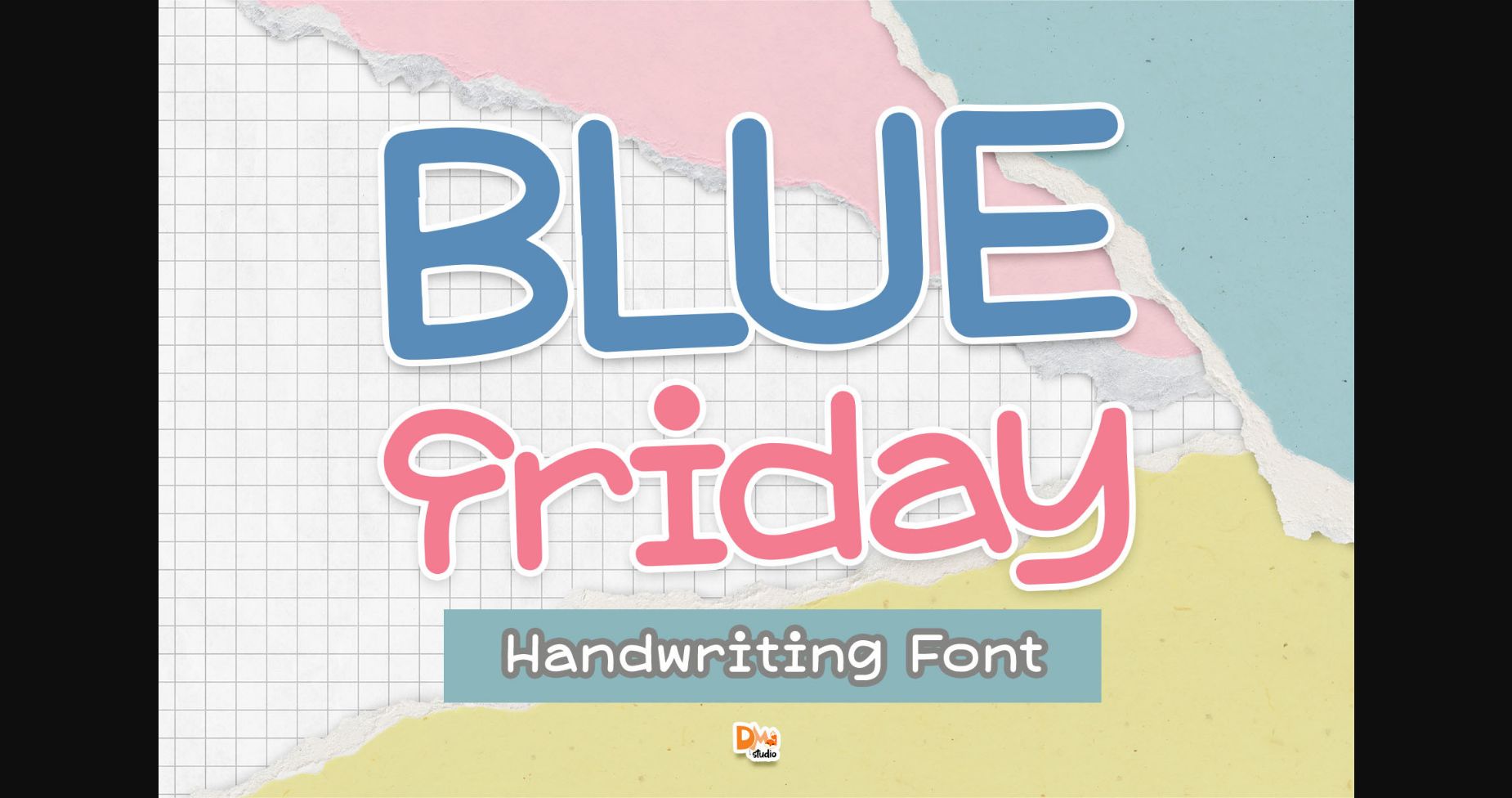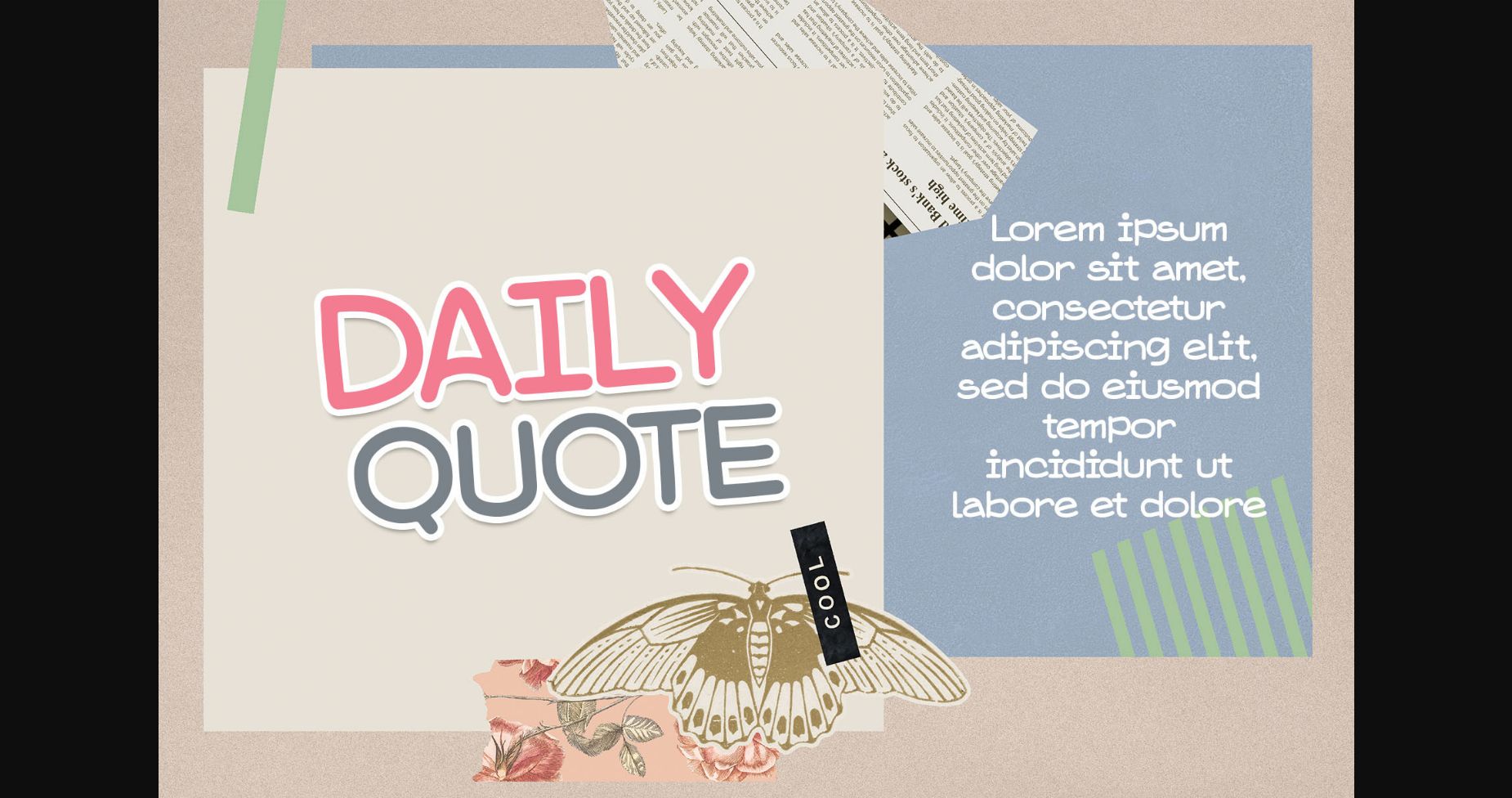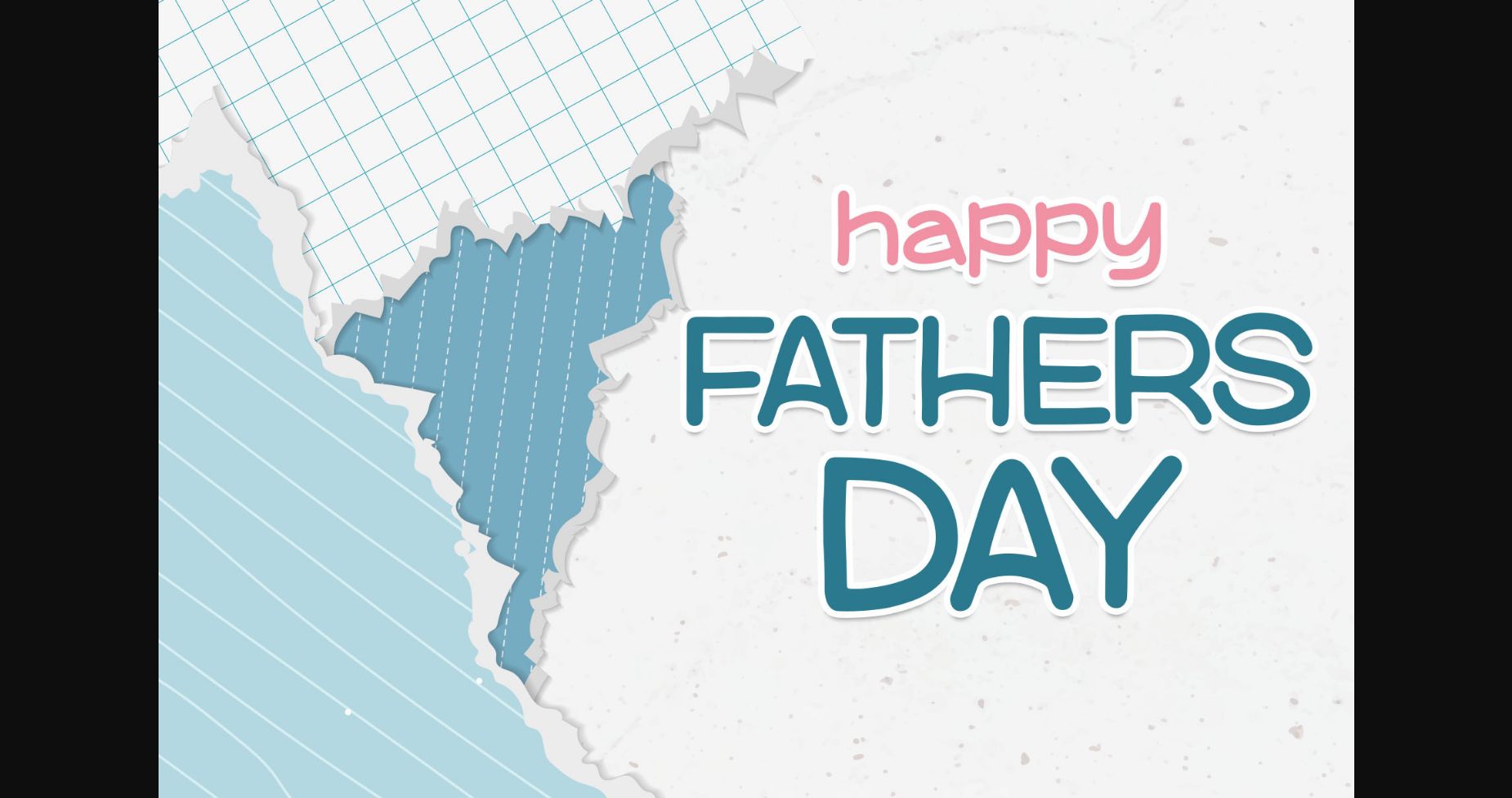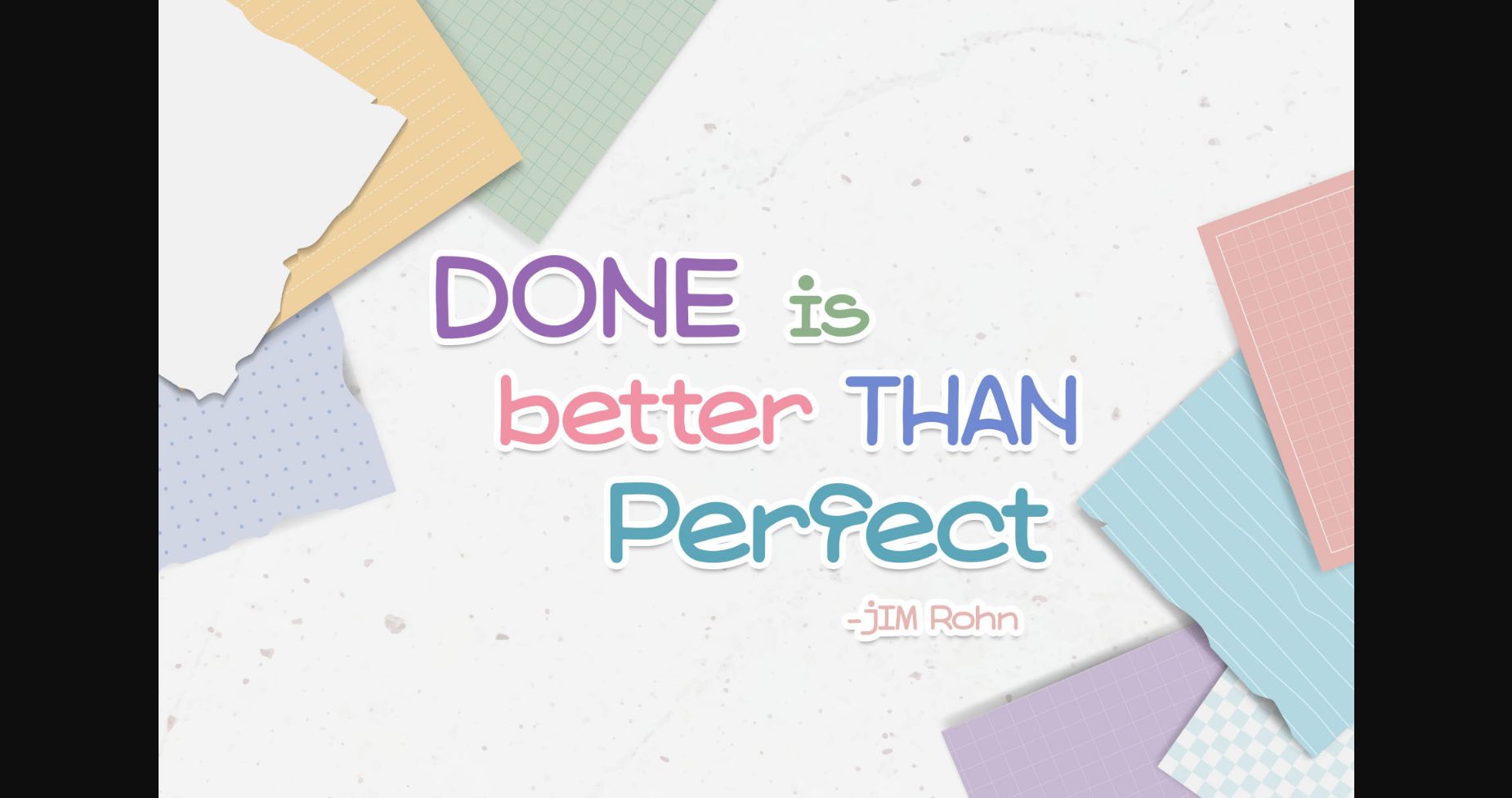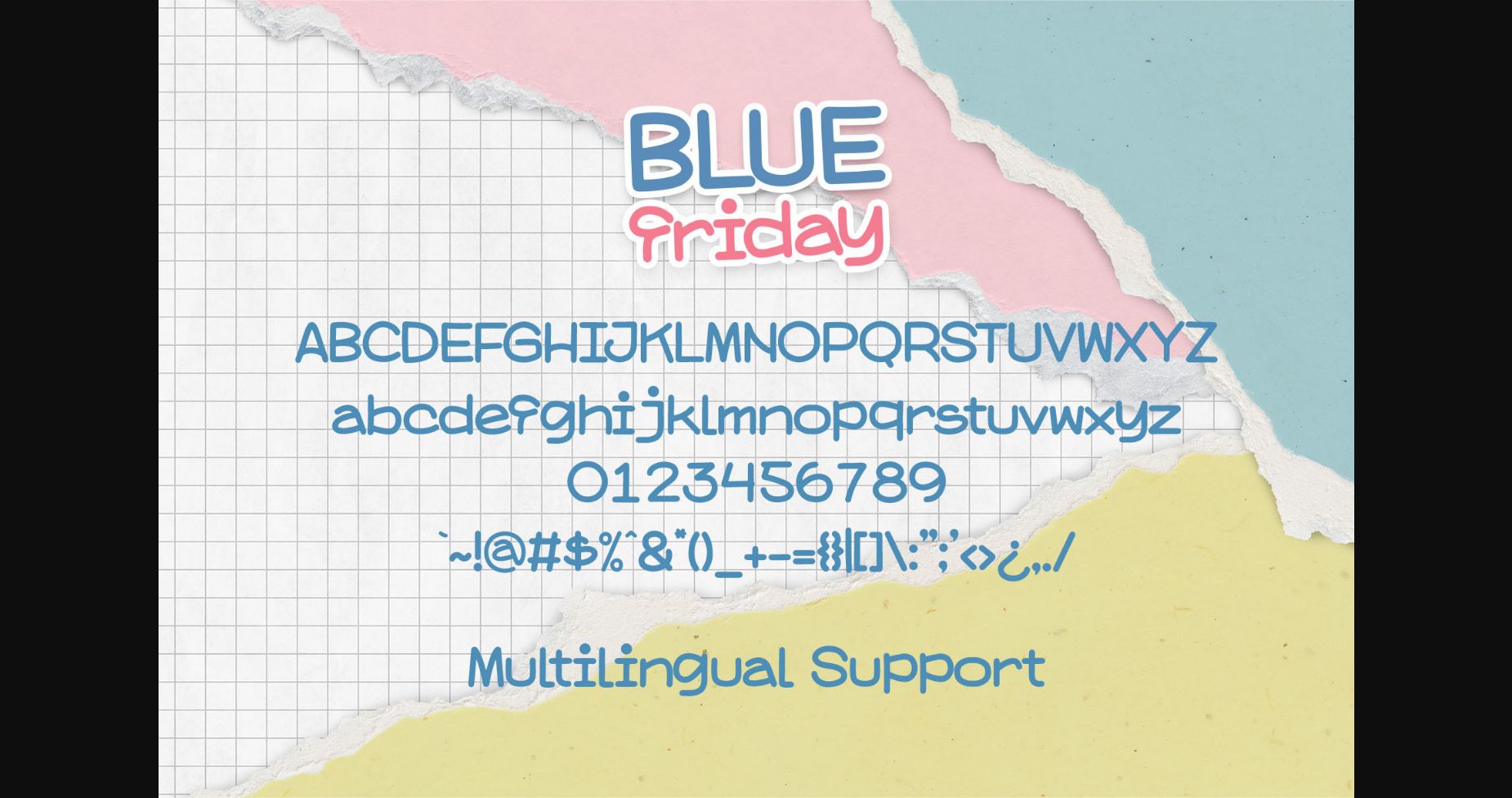
Blue Friday Font
About Blue Friday Font
Blue Friday is a fun and quirky sans serif font. It’s a clean monoline font that is great for display or any other purpose.
Make your DIY product more catchy using this versatile font!